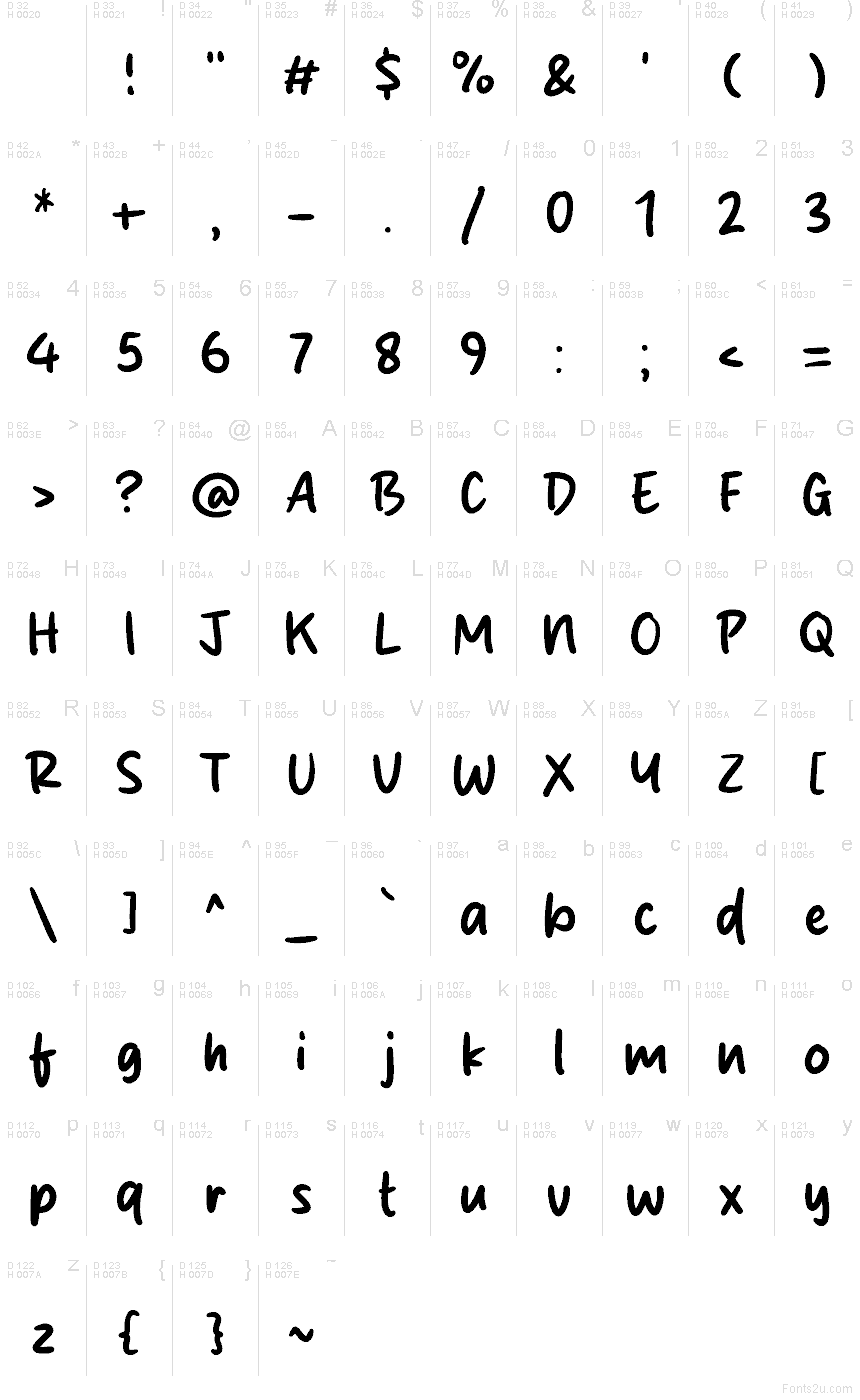
Shopia Bilqis
Shopia Bilqis font by MJType is a free handwritten font that gives you that bold, personal touch without sacrificing clarity. Its thick, inky strokes, rounded corners, and steady rhythm feel like confident marker lettering—friendly, a bit playful, but still clean enough to read at a glance. The spacing is generous and even, so words hold together in a smooth line instead of looking messy or jittery.
Using Shopia Bilqis, you can bring warmth and personality to branding for boutiques, product packaging, quote posts, YouTube thumbnails, greeting cards, and café or bakery menus. This free font shines at larger sizes where its brush texture can show, and it pairs easily with a simple sans serif for body text to keep layouts balanced and readable.